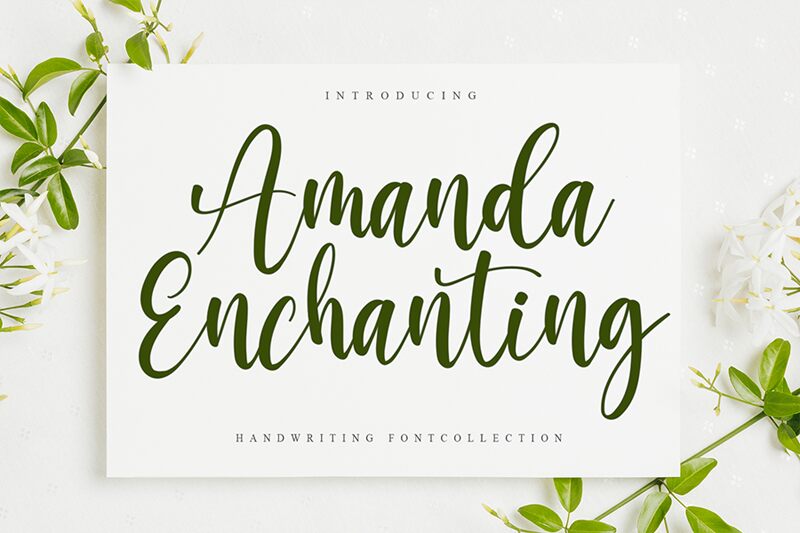
Amanda Enchanting font by Creative Homework will immediately bring your designs to life. A free handwritten font, it is elegant and modern with a flowing style, both expressive and decorative. Its friendly and approachable tone, together with its trendy finish, make it the perfect versatile choice for all your projects. It’s stylish and casual, and it’s available as a free font.
This font retains a classy calligraphic influence while feeling contemporary and fresh. Its versatility appeals to a wide range of creative ideas, suitable for applications from letterheads and titles to stationery.